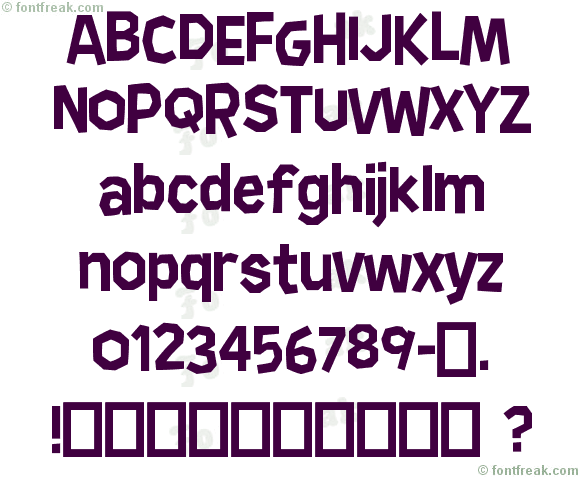
Ander Hedge Regular
About Ander Hedge Regular
Ander Hedge Regular is a distinctive display font designed by Jayvee Enaguas, characterized by its bold, geometric forms that blend contemporary design with a touch of playfulness. This typeface falls into the category of decorative fonts, making it an eye-catching choice for a variety of creative projects. The strokes are thick and pronounced, providing a strong visual impact, while the unique character shapes offer a slightly whimsical flair. Spacing is well-considered, ensuring legibility even in larger formats, which enhances its versatility across different applications.
Ideal for use in a range of contexts, Ander Hedge Regular shines in areas such as event branding, particularly for playful themes like children's parties or casual gatherings. Its bold nature makes it suitable for eye-catching movie posters, where it can attract attention and convey a sense of excitement. Additionally, this font is perfect for restaurant menus that aim to create a fun and inviting atmosphere, as well as for creative marketing materials that require a distinct visual identity. Graphic designers, small business owners, and content creators will find this font particularly appealing for its engaging aesthetic.